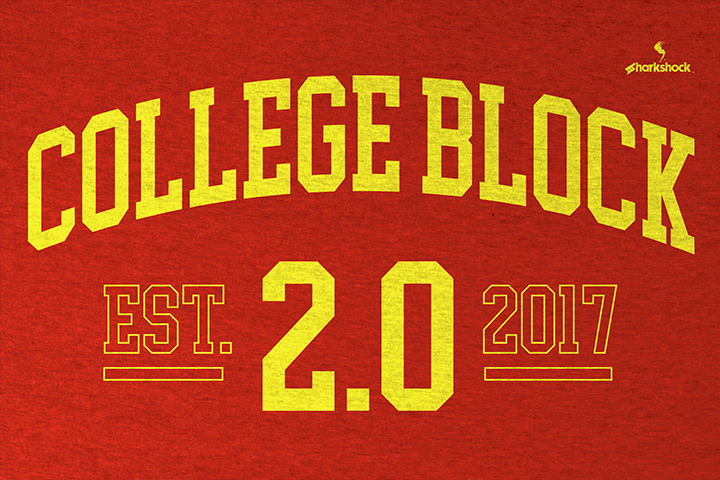
College Block 2.0 Font
About the College Block 2.0 Font
Elevate your designs with College Block 2.0 Font, a font that combines sophistication with readability. College Block has been revamped and joins the 2.0 class. The letters are about 30% taller, just waiting to be arched and thrown on a University sweater. Several of them, along with European accents have been redesigned completely. Cyrillic makes its way into this font along with many other diacritics for international support. Use College Block 2.0 for a t-shirt, logo, or web graphics.
College Block 2.0’s bold, confident style is ideal for headlines, logos, and short impactful text on posters or apparel. Its increased height makes it highly legible at larger sizes, perfect for branding applications requiring strong visual presence. However, the weight and relatively large x-height make it unsuitable for body copy or extended text blocks in UI or long-form publications.
Pairing it with a clean sans-serif like Open Sans for body text creates a strong visual hierarchy. For a more playful feel, consider pairing with a rounded geometric sans-serif such as Nunito. A classic serif like Merriweather could add a touch of sophistication, offering contrast without competing for attention.
The overall personality is energetic and modern, suiting brands aiming for a youthful, approachable yet assertive image. Think sportswear, student organizations, or tech startups needing a strong visual identity.